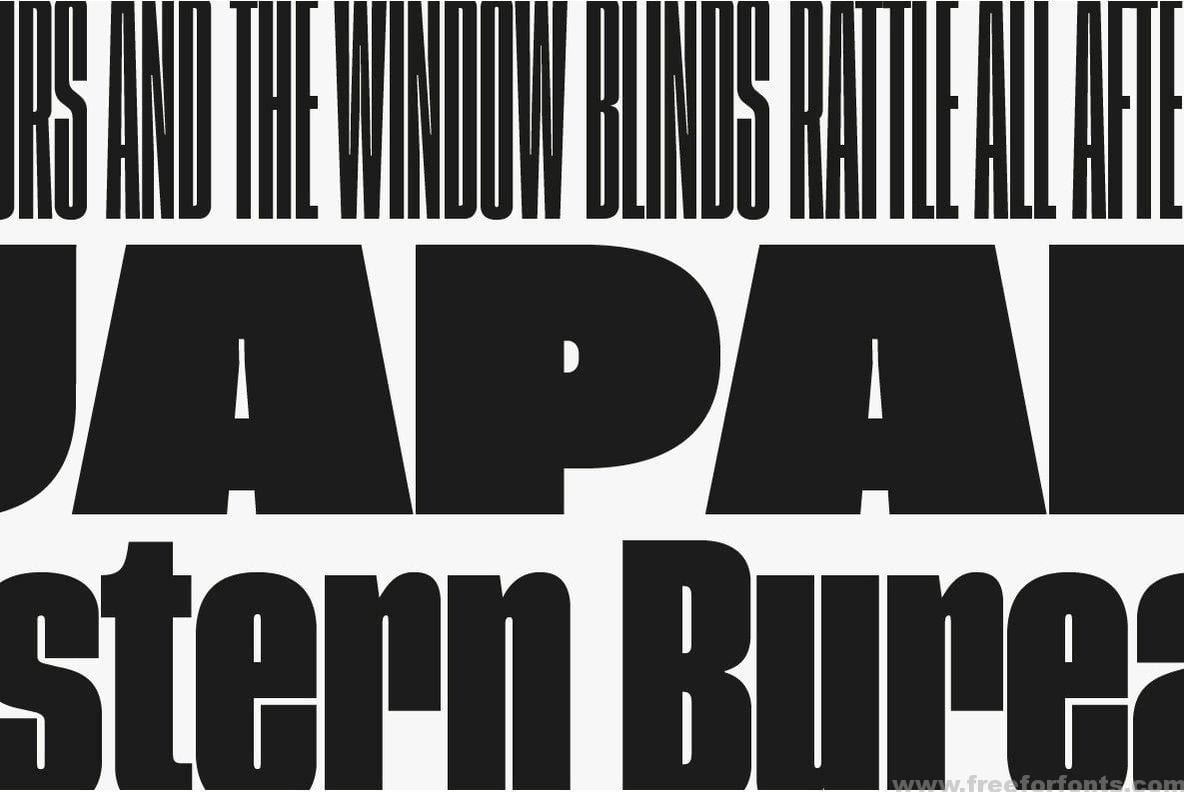
Tusker Grotesk Font
Tusker Grotesk Typeface Lewis McGuffie Signs & Designs Typeface
Tusker Grotesk is a bold and robust headline sansserif font with a